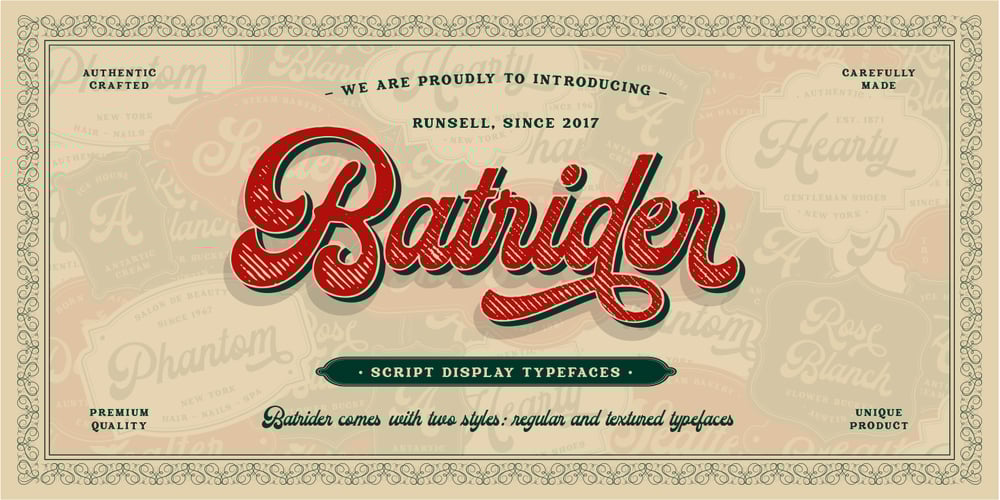
Batrider
Batrider font
Batrider Font Family was designed by Fitriyawan and published by Runsell Type. Batrider contains 2 styles and family package options. Batrider is a Script Display font inspired by vintage lettering in old labels. It comes in two style: regular and textured. Batrider textured contains rounded corner and authentic textured for an organic printing look. Carefully made with perfectly horizontal vertical bezier handles. Every single letter contains beautiful alternates characters (stylistic set 1 – stylistic set 16) and features ligatures. Batrider is great for designs such as the logotypes, packaging, branding, quotes, business cards and more custom design. The features are uppercase, lowercase, numeral, punctuation and symbols, ligatures, alternates, multi-lingual support, PUA encoded. How to get access alternate glyphs with designing software to open type fonts, click here.